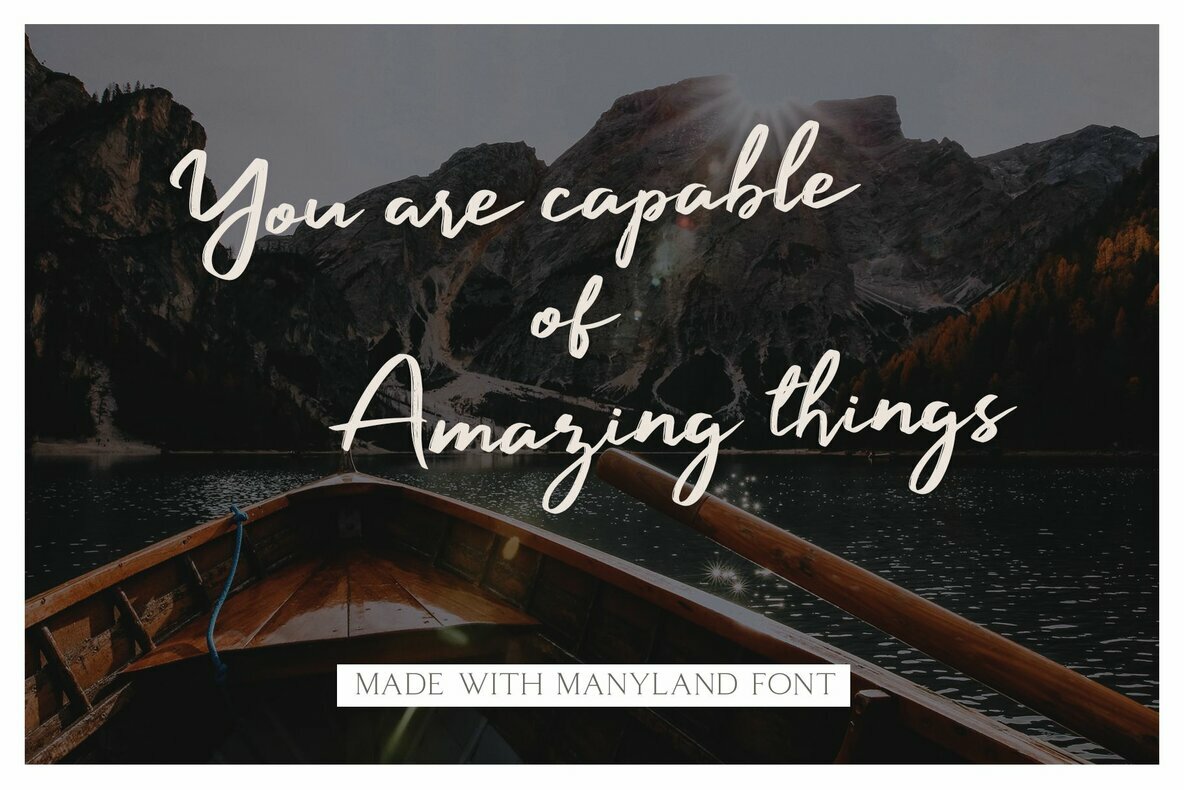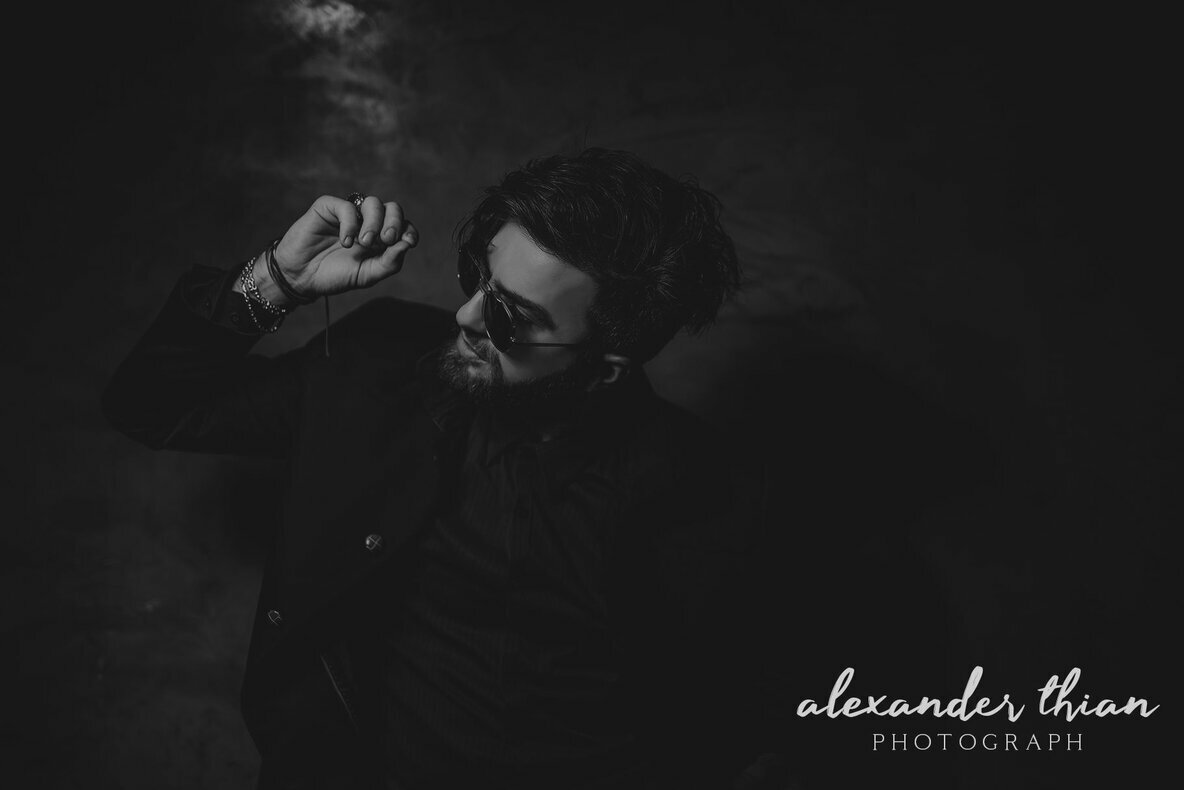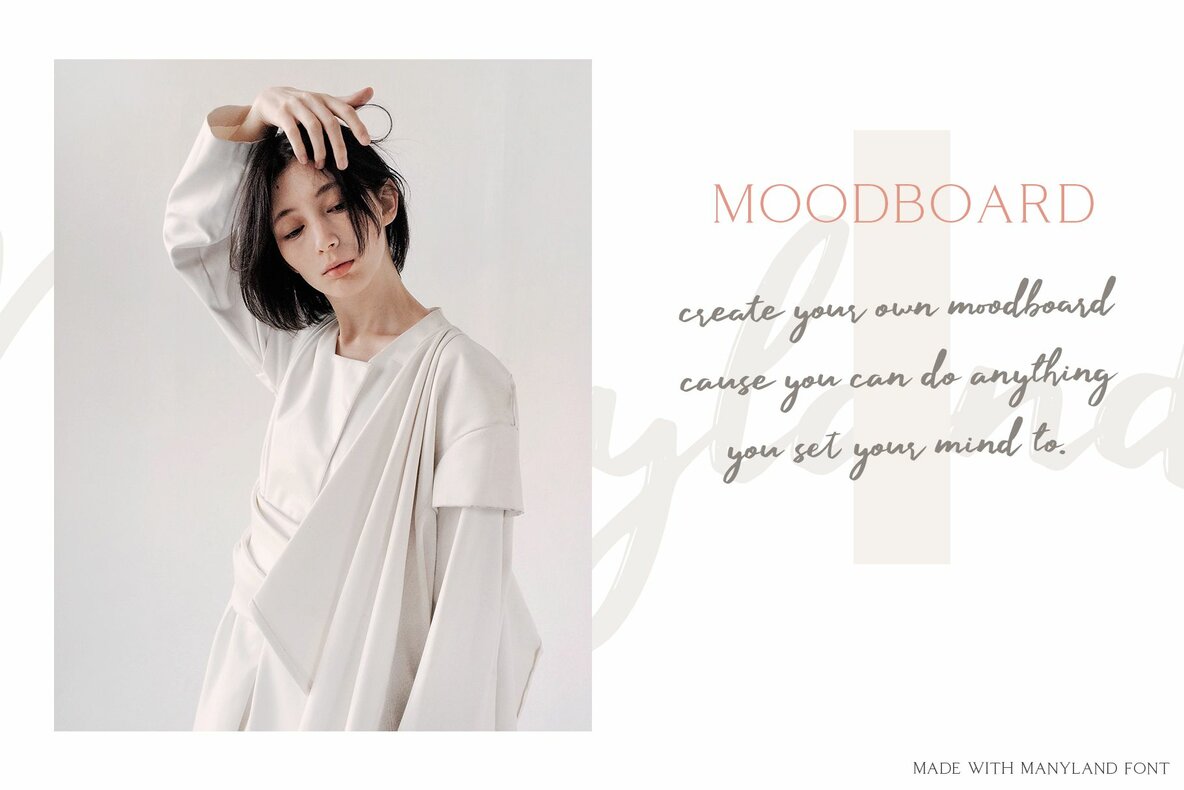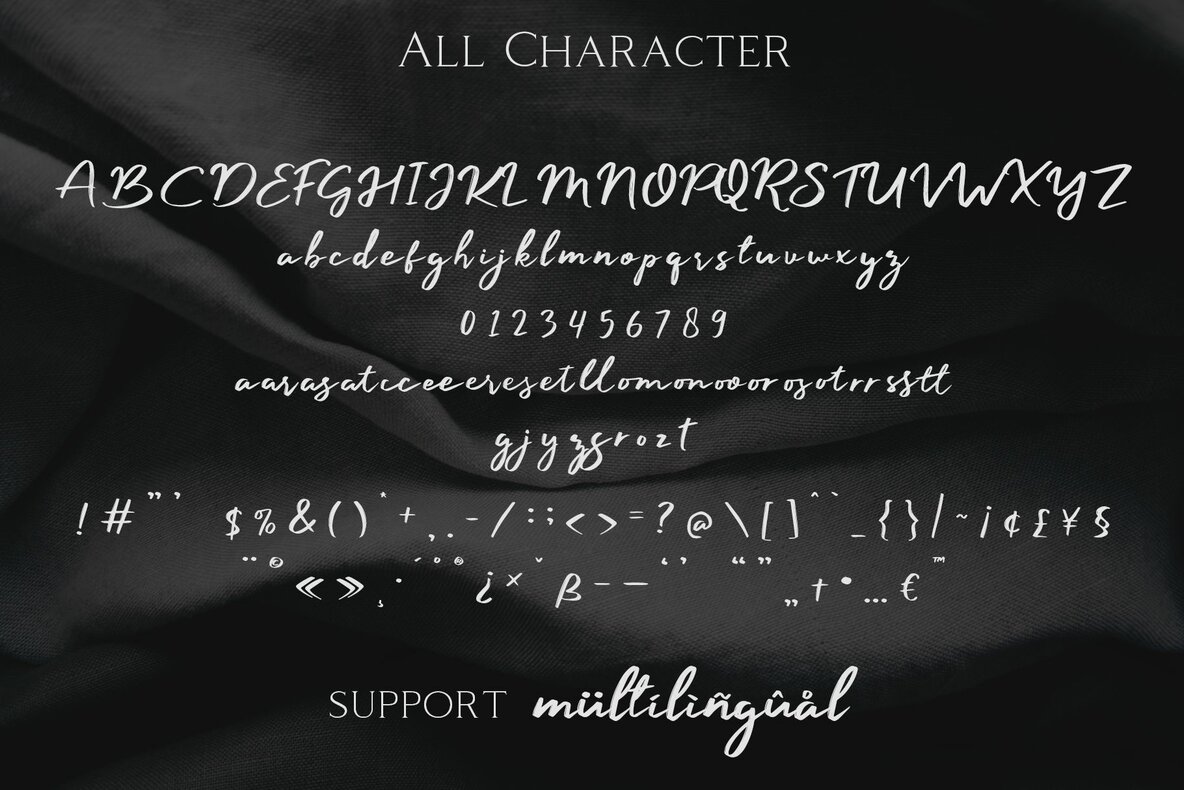
Manyland Font
Manyland is a flowing monoline script that masterfully captures the nuances of cursive handwriting through OpenType features. Designed to easily integrate into a variety of design projects, its seamless letter transitions bring a unique, handwritten touch to your work. Whether you're working on a greeting card, package design, or a complete brand identity, Manyland adapts beautifully to diverse creative needs. This font comes alive in DIY projects, book covers, wedding materials, or any design venture that seeks a trendy, hand-crafted aesthetic. Its versatility allows you to add a distinctive charm to both retro and pop vintage designs.Manyland: A Fluid Handwritten Typeface
Enhance your designs with Manyland, a font that invites creativity with its free-flowing, elegant strokes.